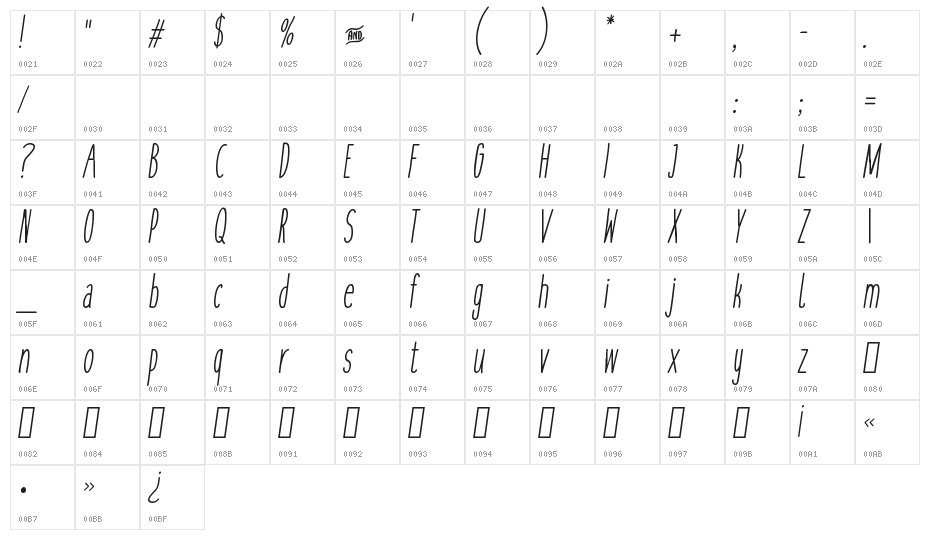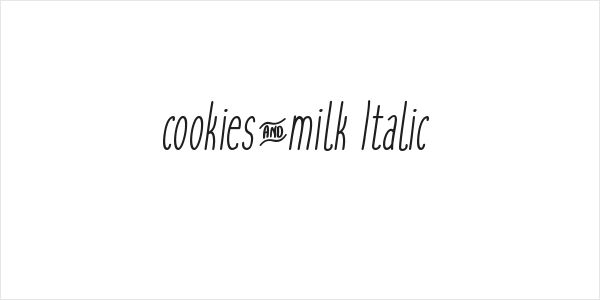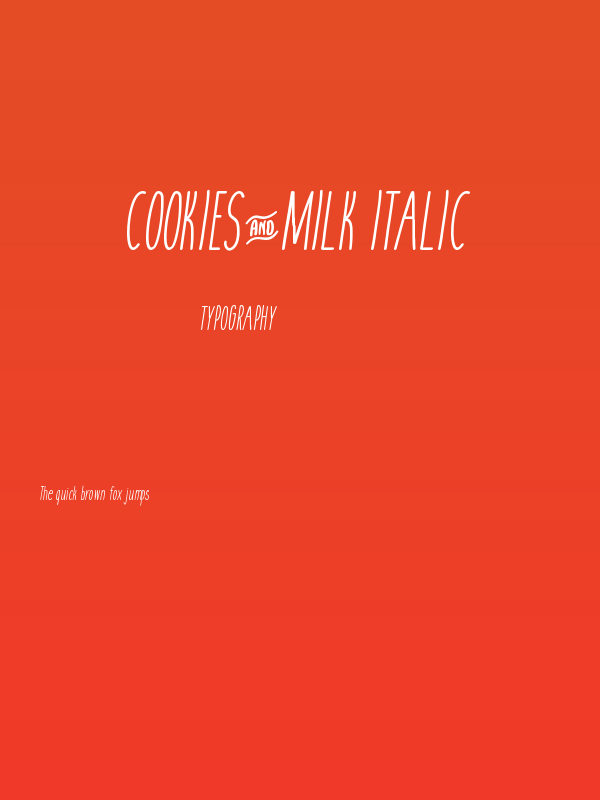
cookies&milk Italic Font
cookies&milk Italic Description
This font features a playful and dynamic style with a handwritten appearance. The letters are elongated and slightly slanted, giving an italicized effect that adds a sense of motion and fluidity. The strokes are consistent in width, providing a uniform look across all characters. The uppercase letters are tall and narrow, while the lowercase letters maintain a similar height, creating a cohesive and balanced design. The special characters and numbers follow the same stylistic approach, ensuring harmony throughout the font. This font's unique character makes it suitable for creative and informal projects.
| Proposed Projects | Ideal for greeting cards, playful branding, children's books, and creative posters. |